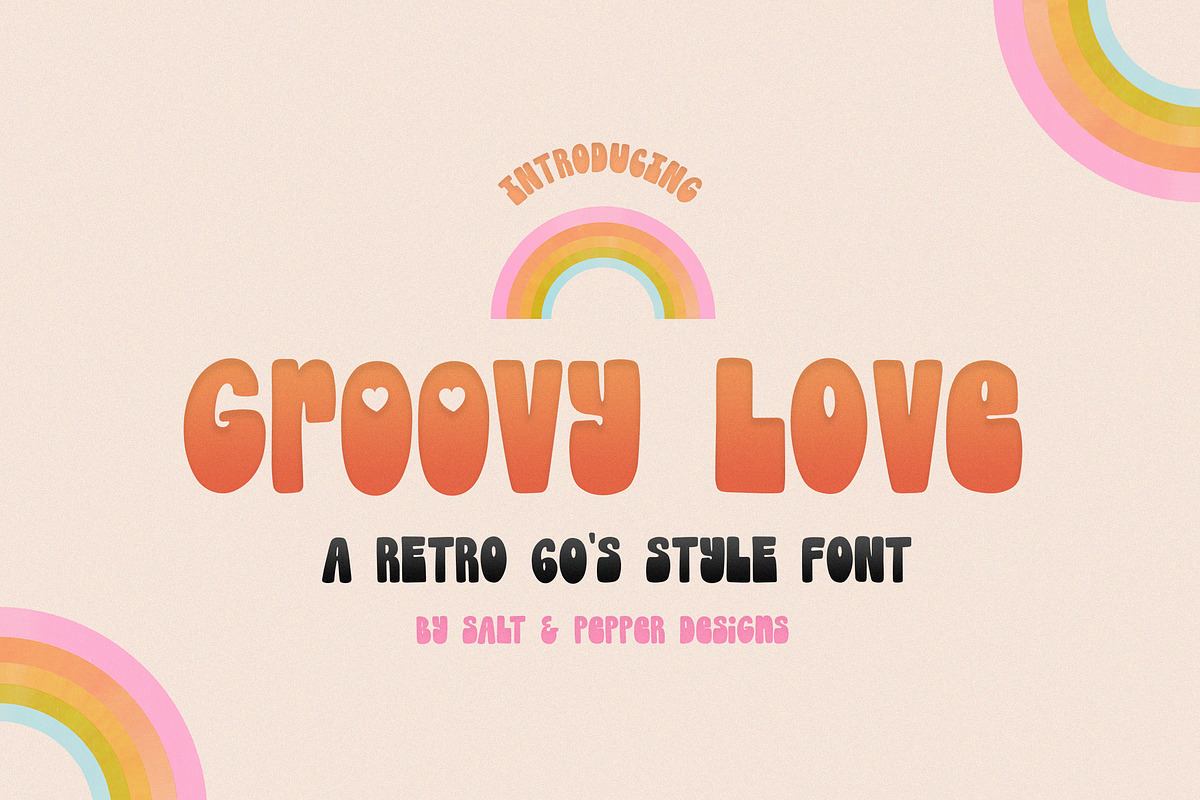
Groovy Love Font Free Download is a bold and playful retro typeface that brings a fun, funky vibe to any design. Perfect for 70s-inspired posters, t-shirts, branding, and social media graphics, this font radiates positive energy and nostalgic charm. Please note that you must purchase this font for commercial use, but it is available as a free download for testing purposes. Let your creativity flow with Groovy Love Font Free Download, and add a touch of vintage flair and free-spirited style to your next project.